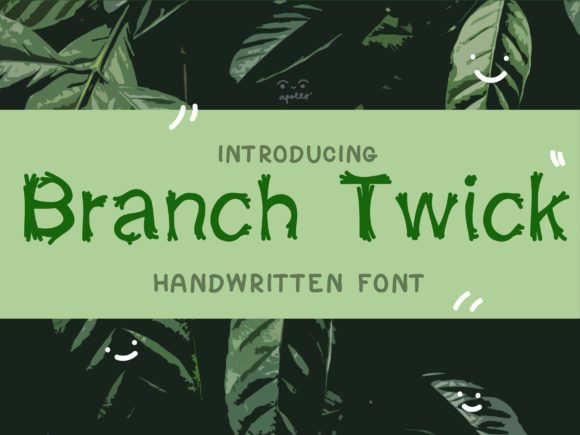
Introducing Branch Twick, the captivating display font that breathes life into your designs. Dive into a lush forest of creativity where each letter dances with the essence of nature. Branch Twick is crafted by the brilliant Apollo no. 64, an artist who captures the raw beauty of the wild.
With Branch Twick, your words will take on a magical charm, enchanting your audience. Its hand-lettered style exudes warmth and authenticity, inviting them to connect with your message. Whether you're crafting invitations, designing logos, or creating spellbinding presentations, Branch Twick will elevate your designs to new heights.
Dive into the enchanting world of Branch Twick and unleash your creativity. Its versatility knows no bounds, making it the perfect companion for any nature-inspired project. From whimsical crafts to impactful digital designs, this font will add a touch of enchantment to your creations.
Join the growing community of artists, designers, and nature enthusiasts who have fallen in love with Branch Twick. Its organic flow and captivating characters will inspire your imagination and empower you to create designs that resonate with the beauty of the natural world.